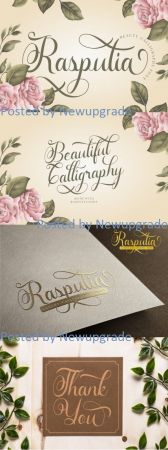
Rasputia is a refined handwritten font carefully created with a touch of elegance. This is a beautiful combination of timeless elegance and authentic calligraphy. Full featured with tons of alternate characters and opentype features.